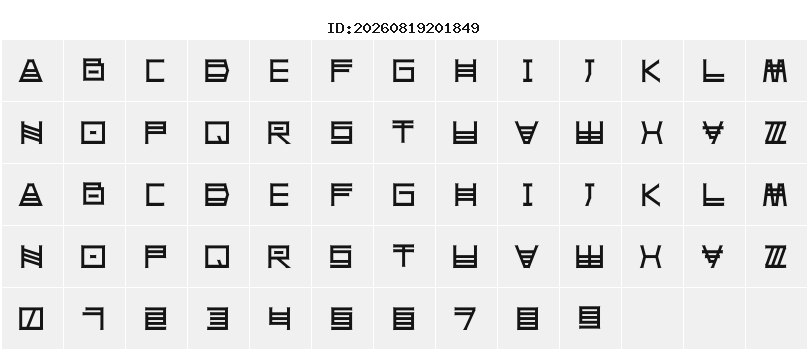
Sheru Preview
• Font Name: Sheru
About Sheru.otf
Sheru.otf is a modern, elegant sans-serif font designed for ultimate readability and visual harmony. Perfect for branding, headlines, web design, and print materials.